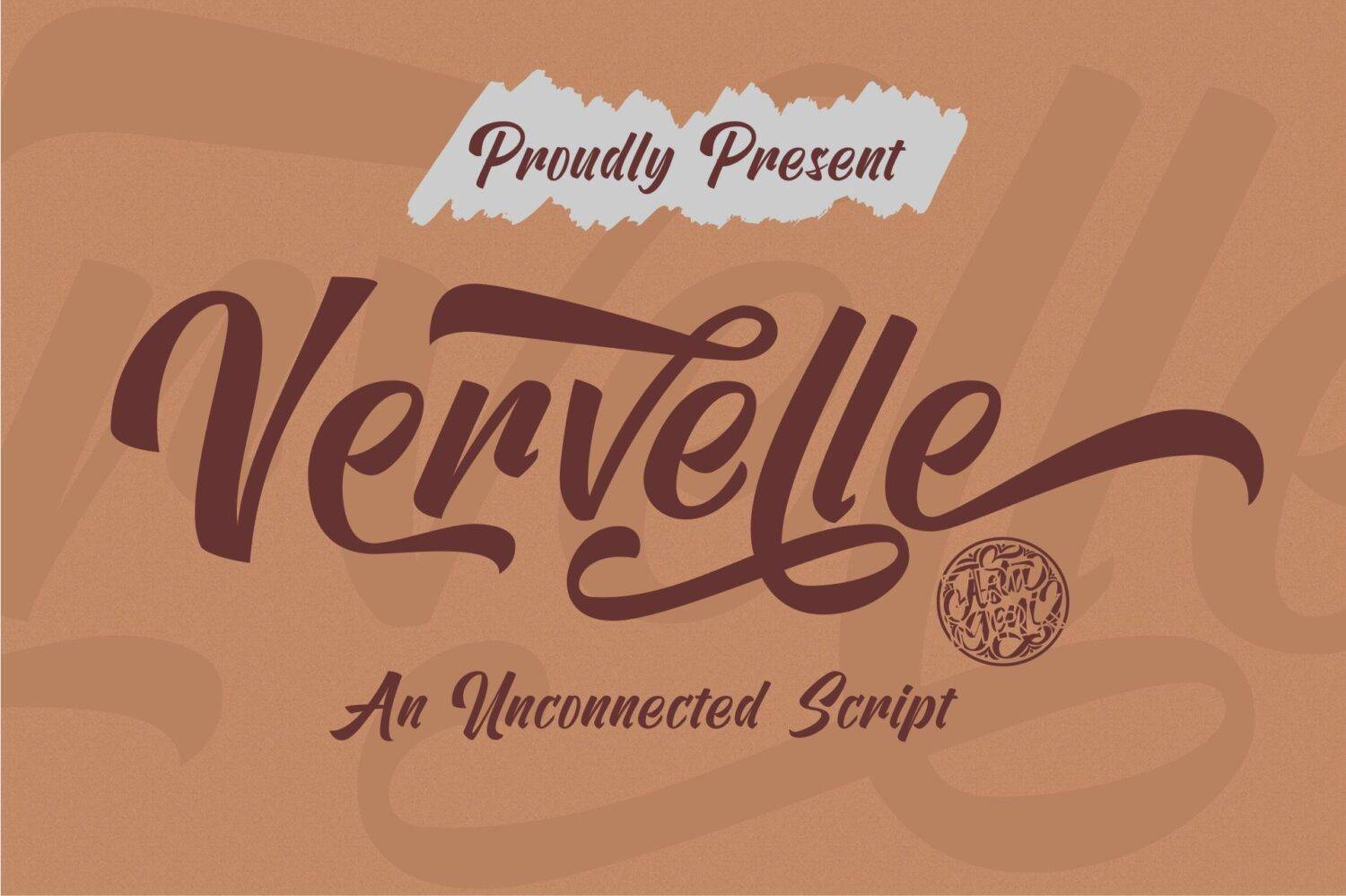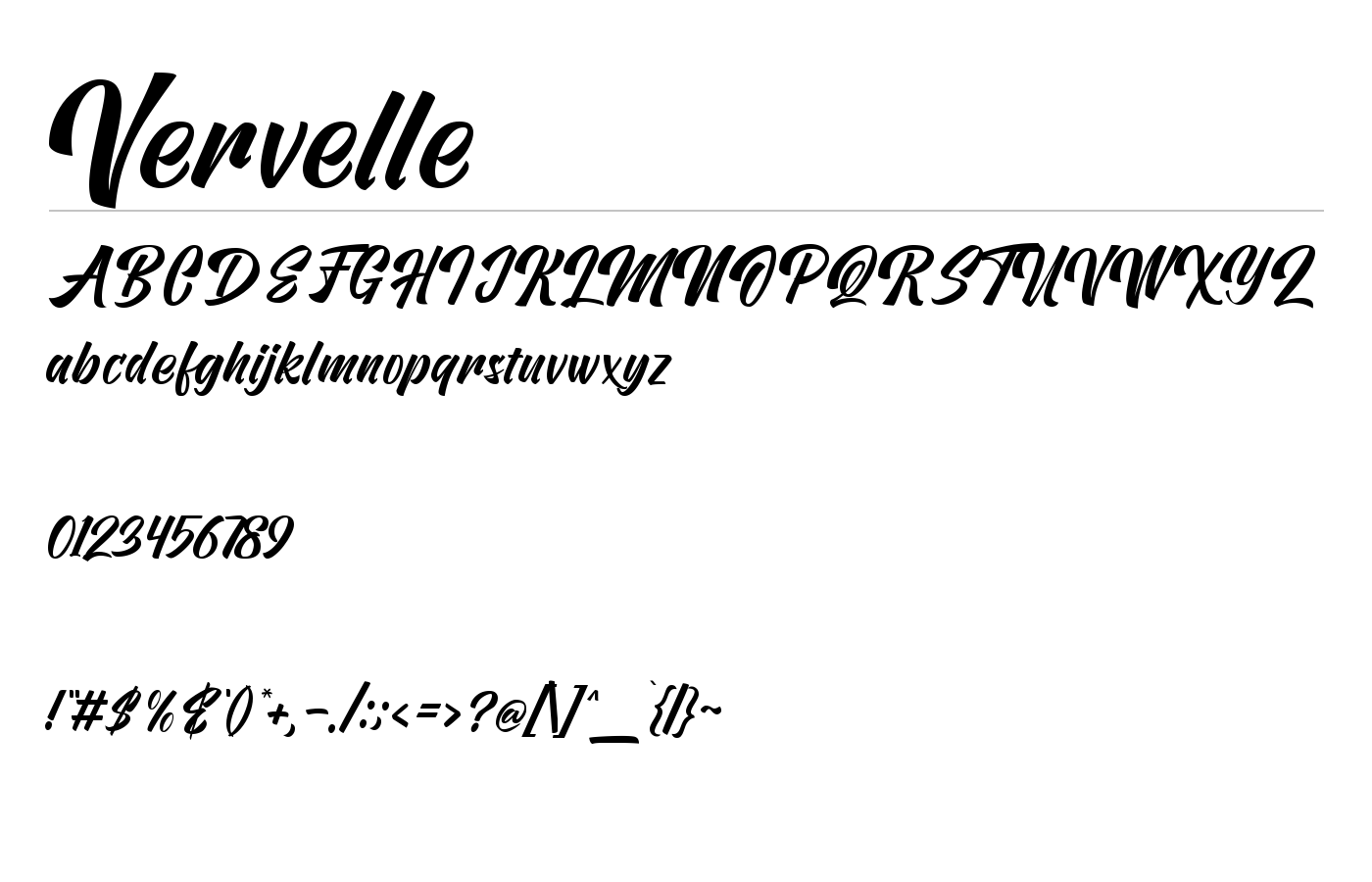
Vervelle Script is a fluid and elegant script font with a distinctively bold and smooth style that combines classic calligraphy with a modern flair. Its slightly condensed letterforms and consistent stroke contrast create a refined yet approachable feel, making it ideal for stylish branding, invitations, and headlines that desire a touch of sophistication and personality. This font works well wherever a confident, artistic script can enhance the design with charm and readability.
Vervelle Script
About Vervelle Script
| Font family | Vervelle Script |
| Designer | Nur Solikh |